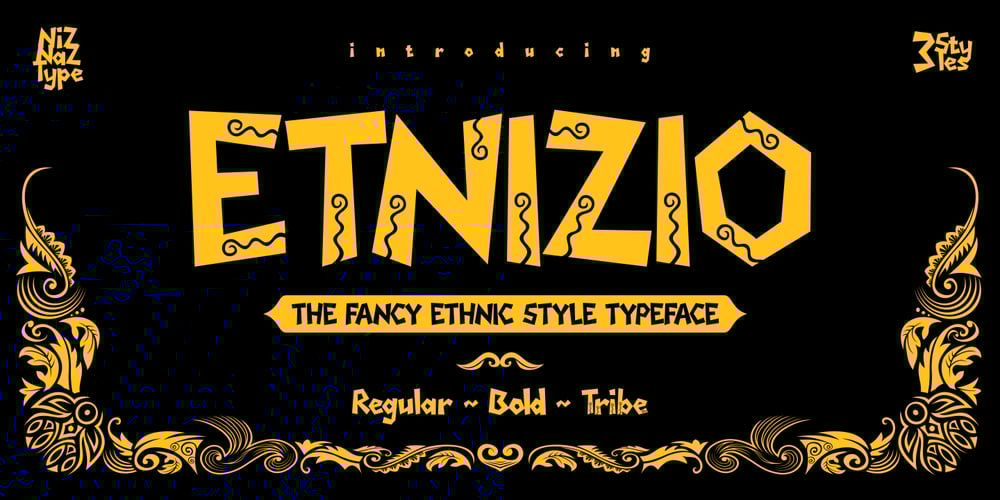
Etnizio
Etnizio font
Etnizio Font Family was designed by Muhammad Nazarudin and published by Niznaztype. Etnizio contains 6 styles and family package options. Etnizio is the fancy ethnic style typeface. Etnizio glyphs have n inethnic ortribe characteristic. This font very suitable to used graphic design thattake themes such as ethnic, culture, art, tribe, wild world, biologic, natureand tourism.It can be apply to marketing instrument like brochure, yer, poster orsocial media.Etnizio created in three styles : regular, bold and tribe (unique glyph). Buteach style have an option in italic style.- Regular & regular italic- Bold & bold italic- Tribe & tribe italicEspecially in Etnizio tribe, in each glyph have an unique character whereit have an ornament to strengthen as ethnic font. Tourism marketing socomfortable to used this Etnizio font to support their media marketing toreach more consumer.Etnizio consist of :- Uppercase- Lowercase- Numeral, punctuation and symbol- Multilingual LanguagePlease, enjoy it with Etnizio. A fancy ethnic style typeface. Unique andsimple. Thanks a lot.